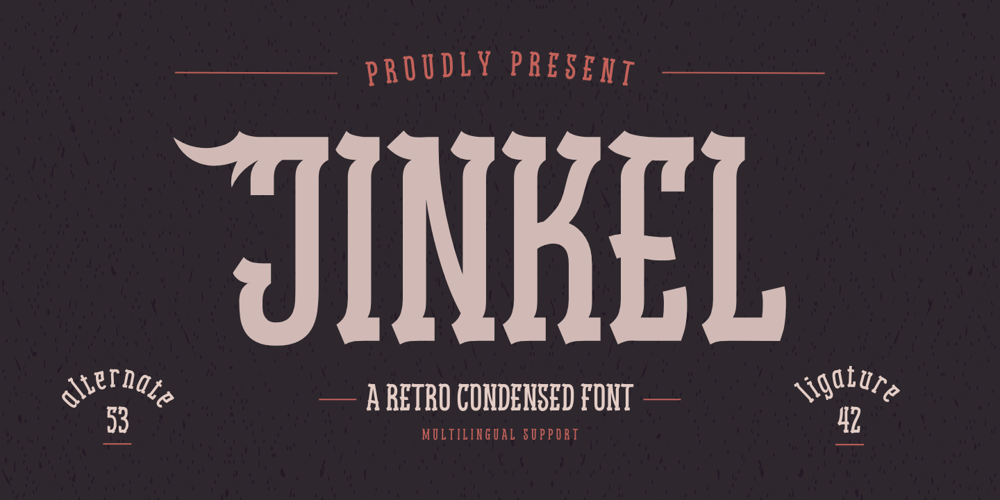
Jinkel
Jinkel font
Jinkel Font Family was designed by Rozikan and published by Twinletter. Jinkel contains 1 styles and family package options. Introducing Jinkel, the perfect font for any design project requiring a retro condensed style. This font features a unique serif design on each end of the letters, providing a distinctive touch to your designs. Jinkel is perfect for titles, headers, logos, and other creative designs that require a touch of vintage inspiration. With alternate characters and ligatures included, you’ll have plenty of design options to choose from. Elevate your designs with Jinkel and give them the retro flair they deserve.What’s Included :- File font- All glyphs Iso Latin 1- Alternate, Ligature- Simple installations- We highly recommend using a program that supports OpenType features and Glyphs panels like many Adobe apps and Corel Draw so that you can see and access all Glyph variations.- PUA Encoded Characters – Fully accessible without additional design software.- Fonts include Multilingual support